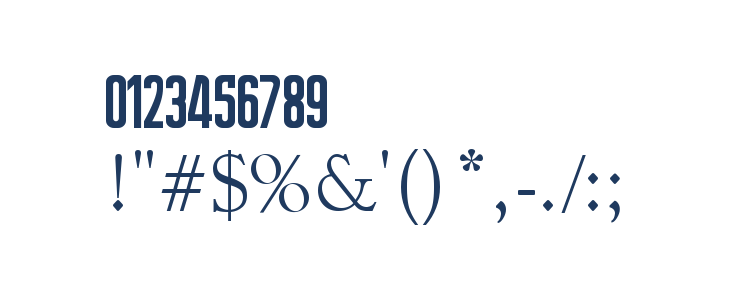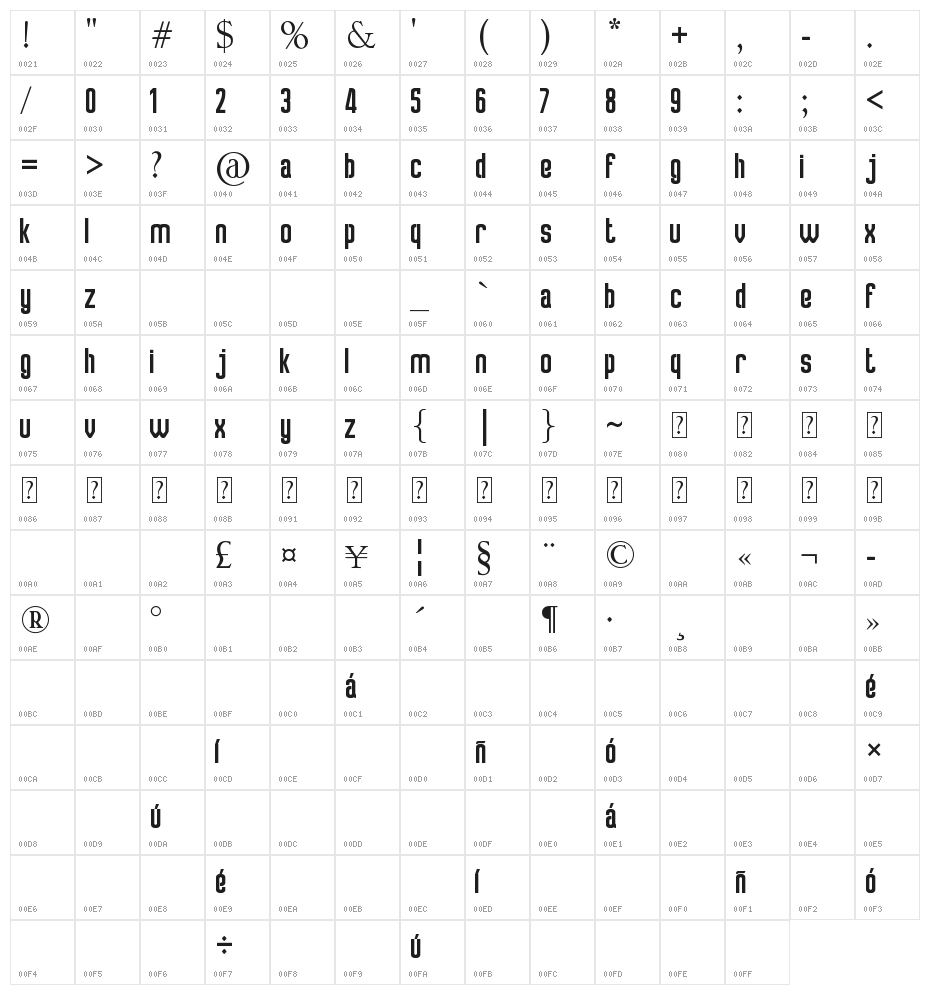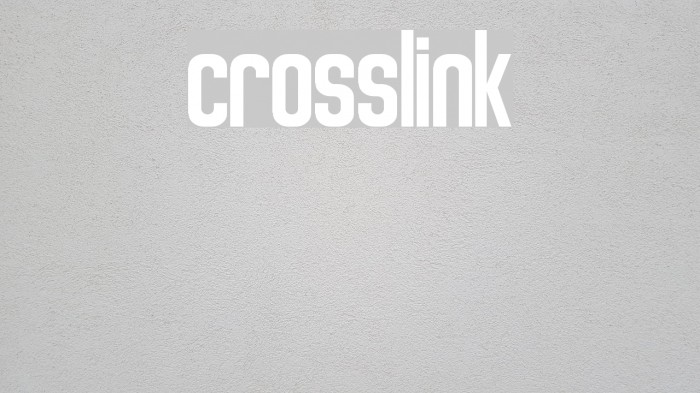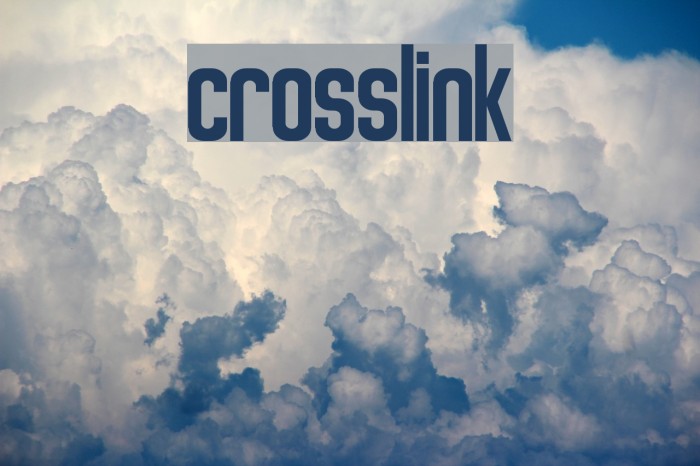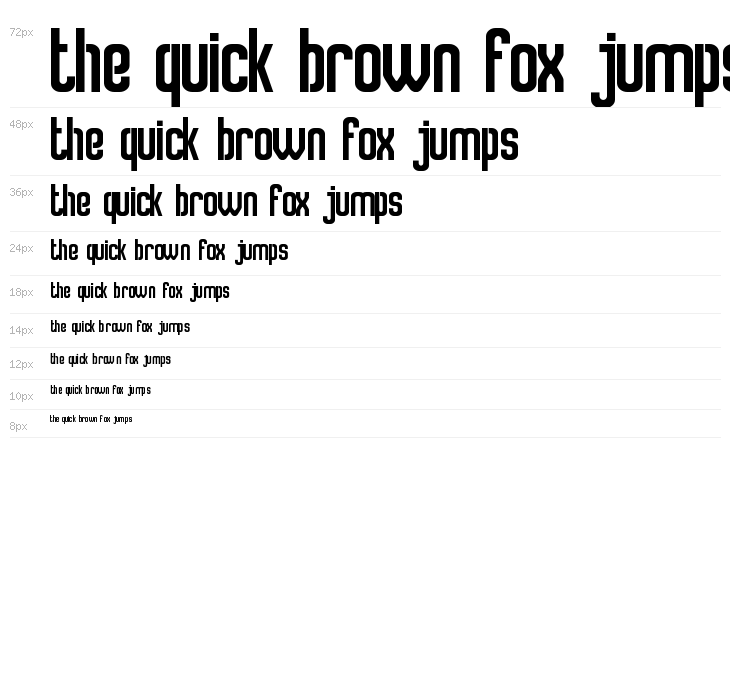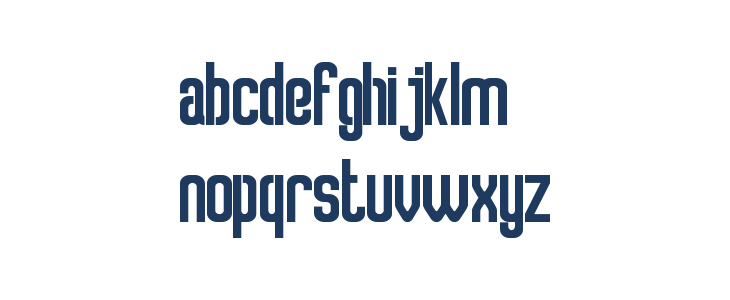
Crosslink Font
Crosslink Description
This font features a bold and modern design with a strong geometric structure. The characters are tall and narrow, giving it a condensed appearance. The strokes are consistent in weight, providing a uniform look across all letters and numbers. The font includes both uppercase and lowercase letters, as well as a full set of numerals and a variety of special characters. Its clean lines and lack of serifs contribute to a contemporary and sleek aesthetic, making it suitable for various design applications.
| Proposed Projects | Ideal for branding, headlines, posters, and digital media where a modern and impactful look is desired. |